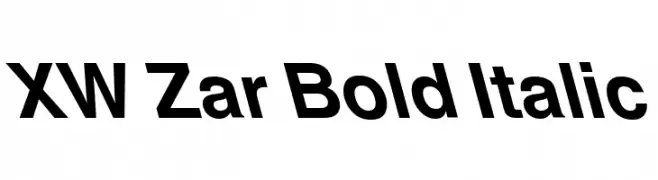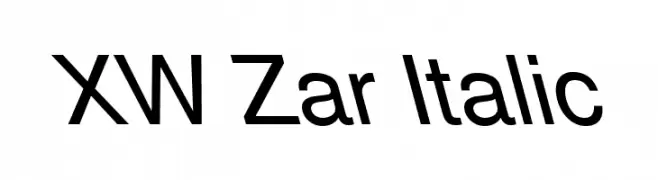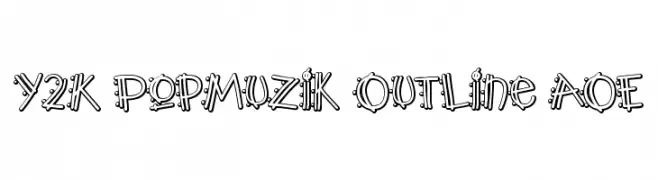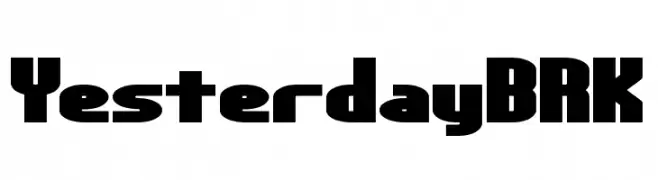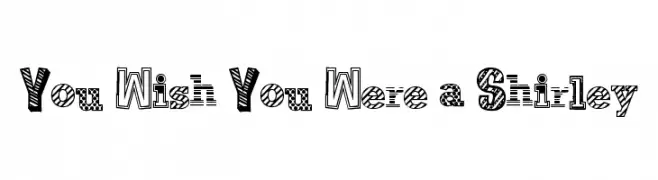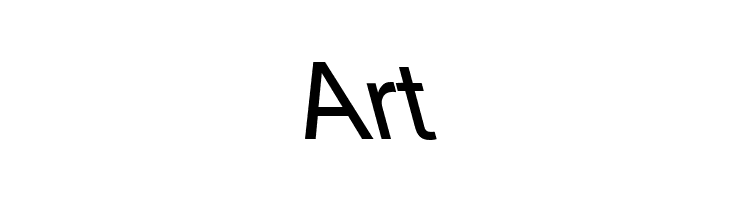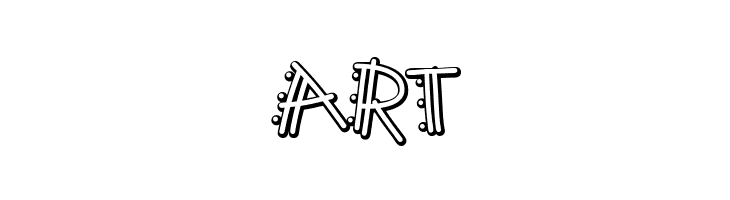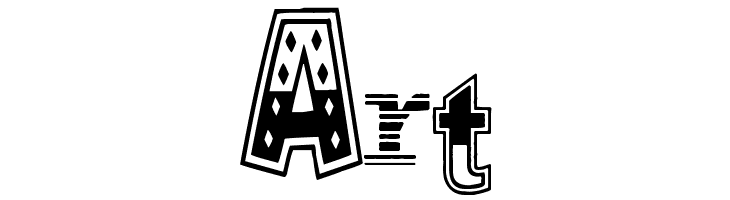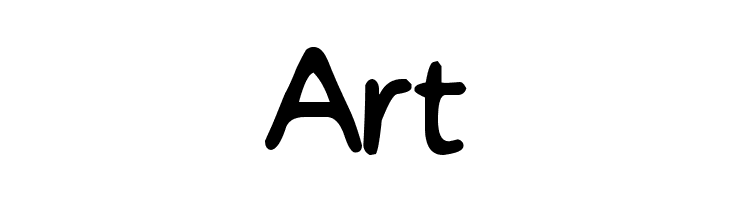
A bold and modern font with thick, uniform strokes ideal for impactful headlines.
Bold, italicized font with a modern and assertive style.
A modern sans-serif italic font with clean lines and balanced proportions.
A playful, dotted font with a retro pop culture vibe.
A playful, outlined font with a retro Y2K vibe and whimsical embellishments.
A bold, geometric font with a modern and impactful design.
A playful, hand-drawn font with rounded, irregular shapes.
A playful, rounded handwritten font with a friendly and informal style.
A playful, textured display font with unique patterns in each letter.
A bold, robust font with strong strokes and a commanding presence.